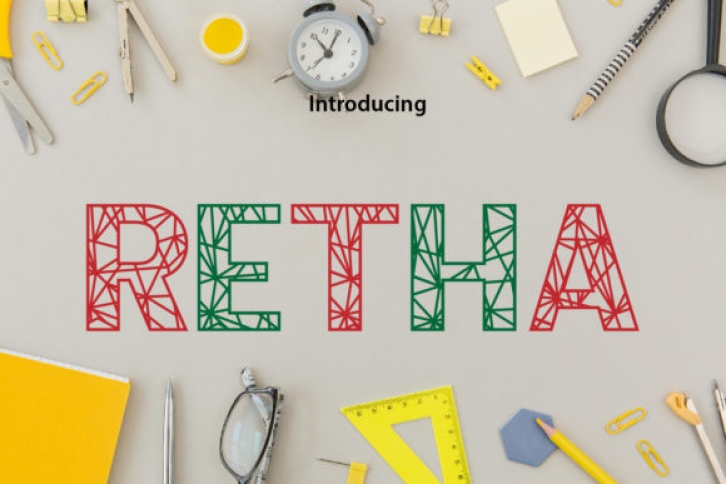
Retha is a fun and fresh typeface. It has beautiful transverse elements on each character which gives it a playful feel. It’s perfect for cards, prints, illustrations, decorations, christmas designs, and much more!